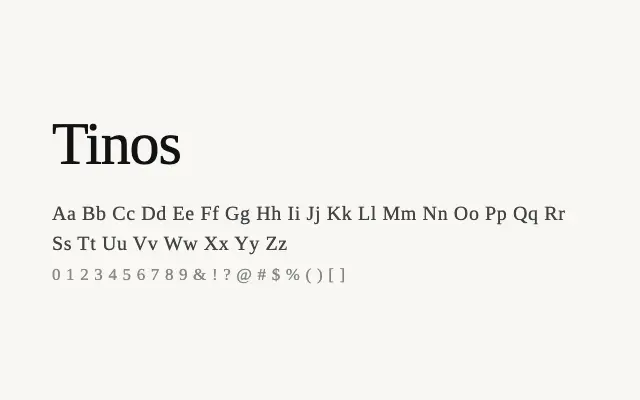
Tinos
Tinos is a metrically compatible Times New Roman substitute with solid Cyrillic and Greek support, designed for practical document use.
Created by Steve Matteson for Google's core web fonts collection, it allows documents typeset in Times New Roman to reflow identically when substituted. Its transitional serif construction is conventional and legible, performing well for long-form text in both print and screen contexts. It is a workhorse rather than a showpiece.
Tinos is a metrically compatible alternative to Times New Roman, designed for broad script coverage including Cyrillic and Greek. Its transitional construction follows established conventions closely, prioritising document compatibility over typographic originality.